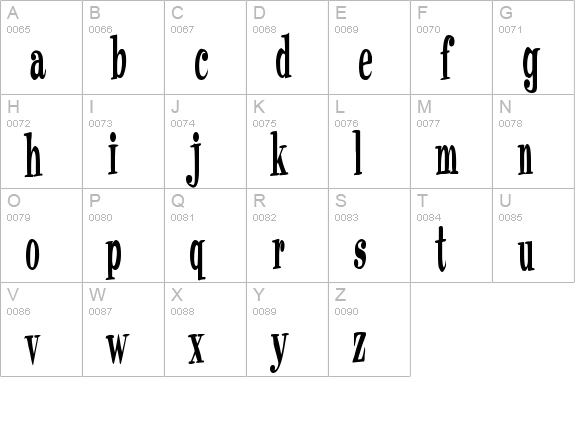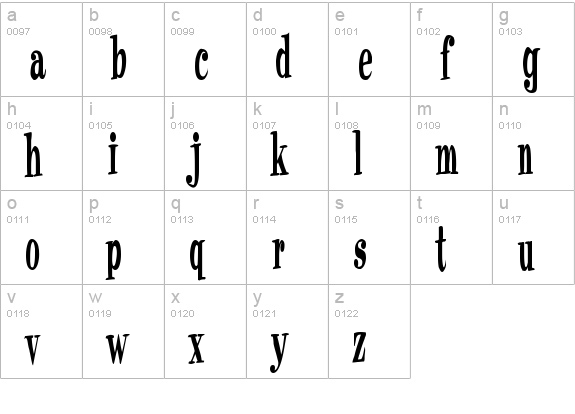
Mr.Wilson Font Details
Mr. Wilson font is a modern and stylish typeface that exudes sophistication and elegance. With its sleek lines and sharp edges, this font is perfect for creating eye-catching designs that demand attention. Whether you're designing a logo, poster, or website, Mr. Wilson font is sure to make your projects stand out. Best of all, Mr. Wilson font is completely free to download at FontsMarket.com. This means you can access this high-quality font without any cost, making it a valuable addition to your design toolkit. Don't miss out on the opportunity to enhance your projects with the sleek and stylish Mr. Wilson font today!